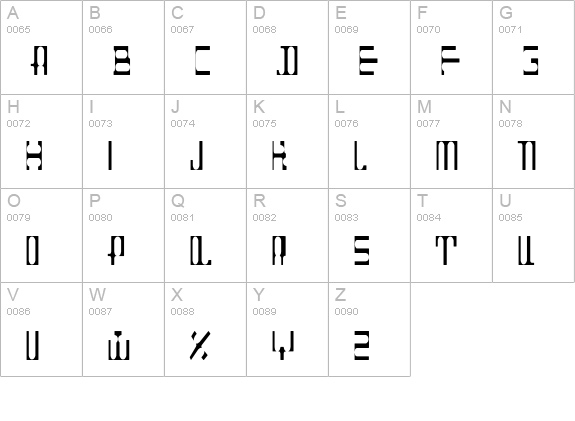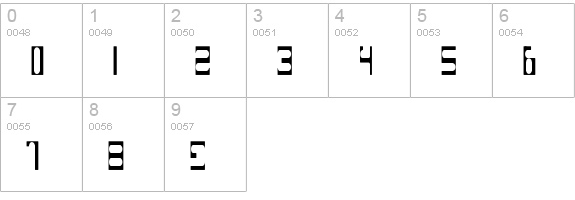
Dahgir-SquareCondensed Font Details
Dahgir-SquareCondensed font is a striking typeface that combines the elegance of a condensed design with the boldness of square shapes. Its clean lines and geometric proportions make it a versatile choice for a wide range of design projects, from modern logos to sleek headlines. This font exudes a sense of professionalism and sophistication, making it perfect for corporate branding, editorial layouts, or any design that requires a touch of refined simplicity. Its condensed nature allows for maximum impact in limited spaces, ensuring that your message stands out with clarity and style. What sets Dahgir-SquareCondensed font apart is that it is not only visually stunning, but also freely available to download at FontsMarket.com. This means that you can enjoy the beauty and versatility of this font without any cost or restrictions. Whether you're a professional designer, a student, or simply someone who appreciates high-quality typography, Dahgir-SquareCondensed font offers you the opportunity to enhance your creative projects with a remarkable typeface. With its timeless appeal and generous availability, Dahgir-SquareCondensed font is a valuable addition to any font library. Its sleek and contemporary design, combined with the fact that it can be downloaded for free at FontsMarket.com, makes it a must-have for anyone looking to elevate their designs with a touch of elegance and sophistication.